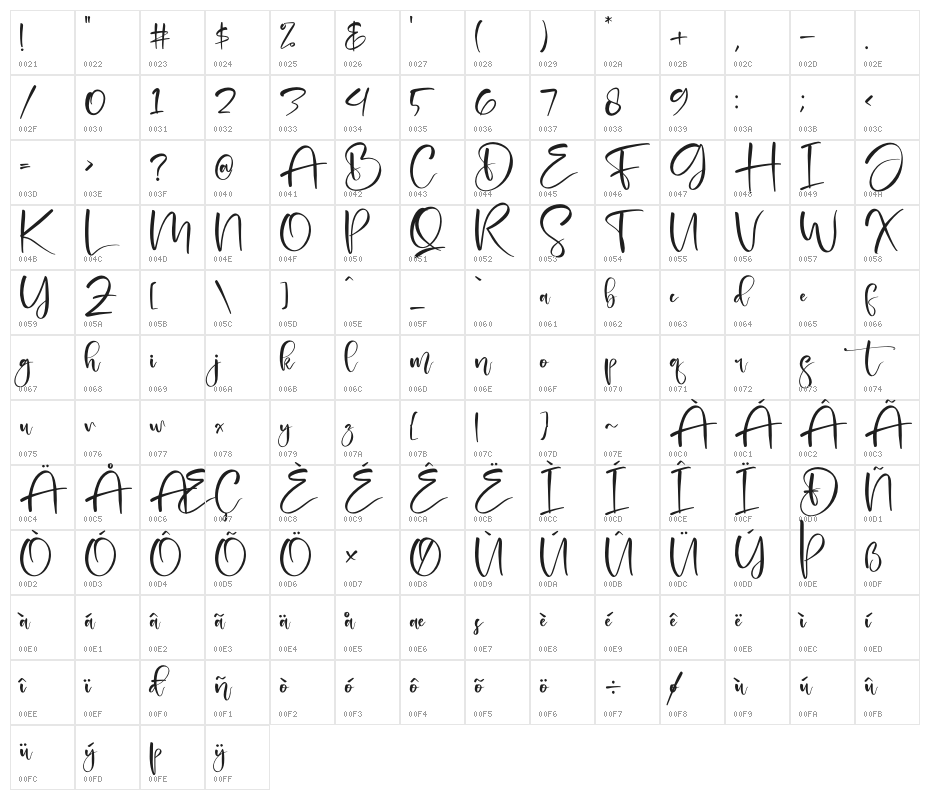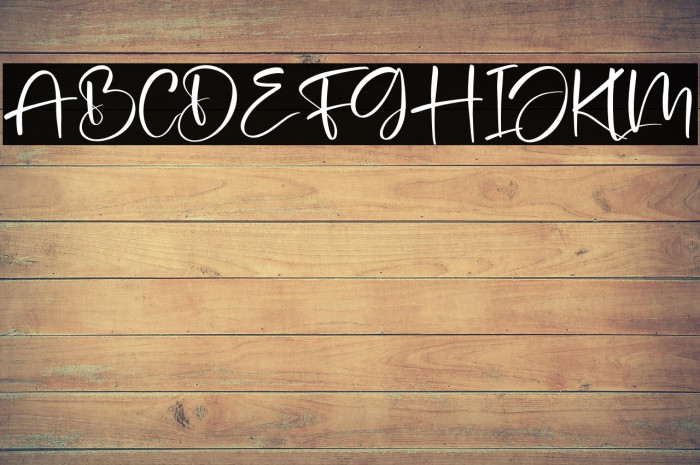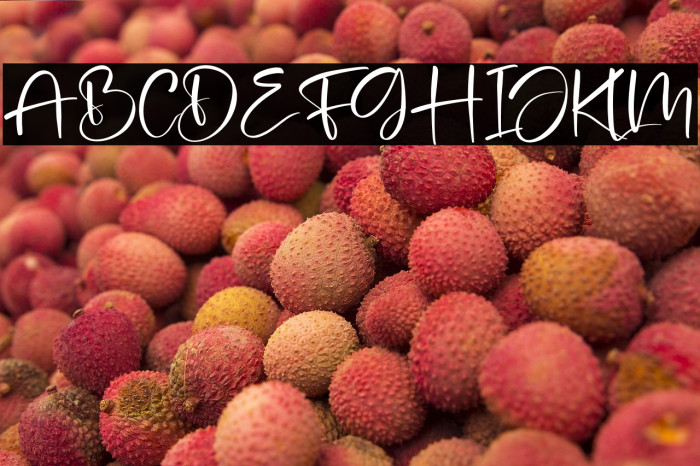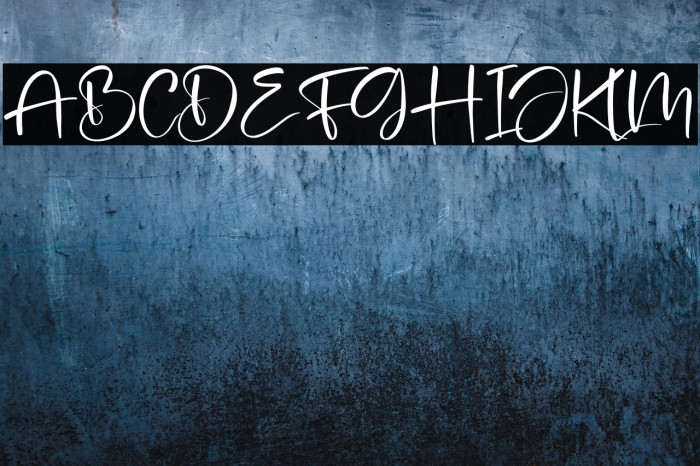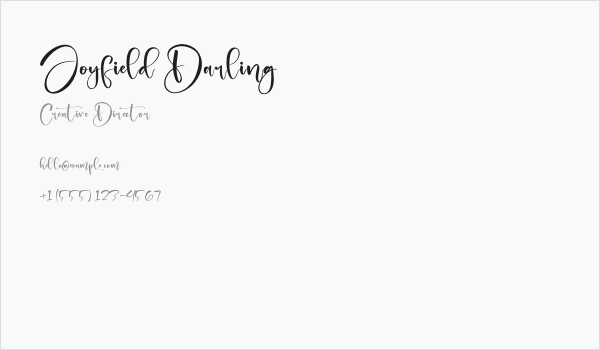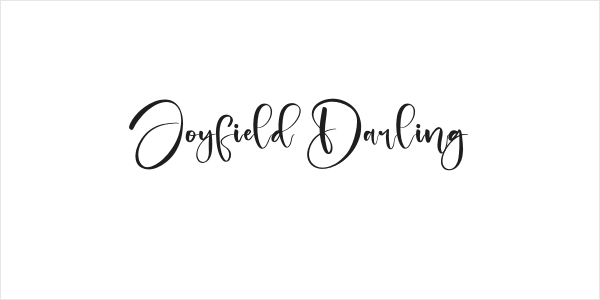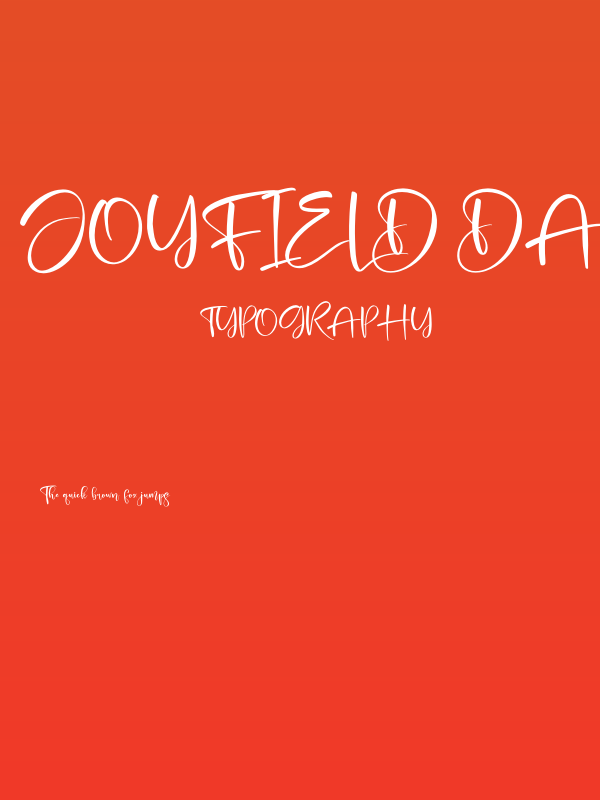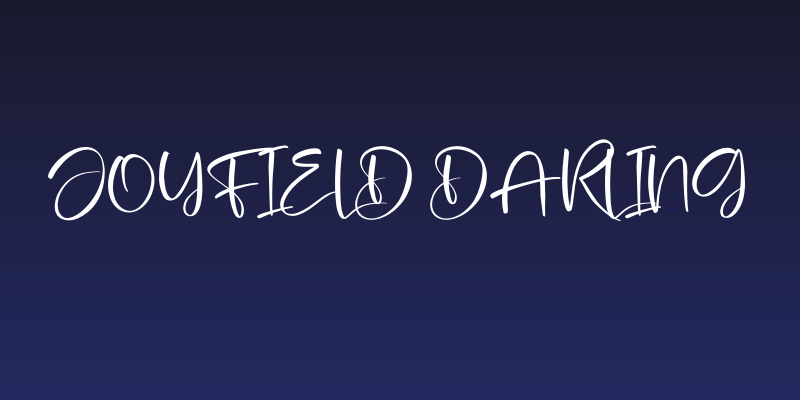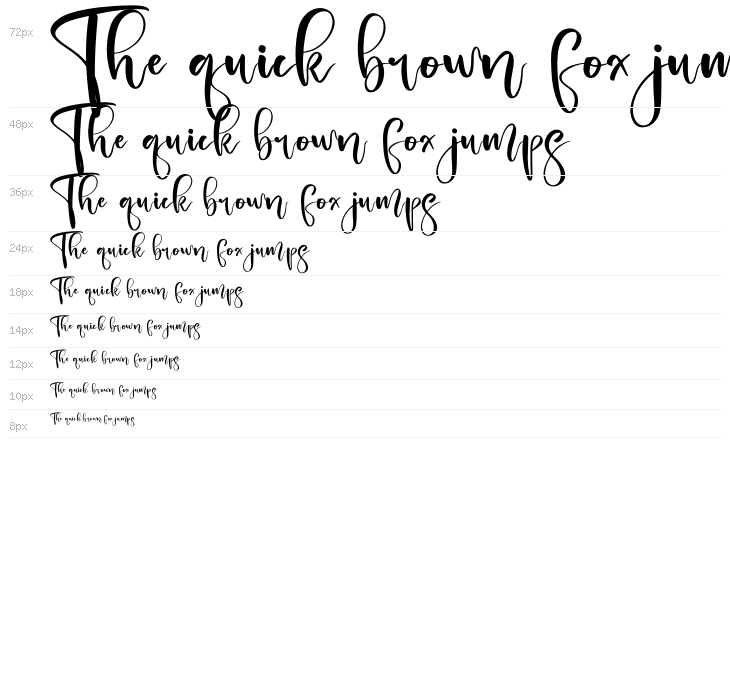
Joyfield Darling Font
Joyfield Darling Description
This font is a lively and expressive script that captures a sense of elegance and playfulness. The characters are fluid and dynamic, with a handwritten style that features loops and swirls, giving it a personal touch. The uppercase letters are bold and slightly elongated, while the lowercase letters maintain a consistent flow, enhancing readability. The numbers and special characters are crafted with the same attention to detail, ensuring a cohesive look across all elements. This font's unique charm makes it suitable for creative projects that require a touch of sophistication and personality.
| Use Case | Logos, Invitations, Social media graphics |
| Proposed Projects | Ideal for wedding invitations, greeting cards, branding, and social media graphics. |